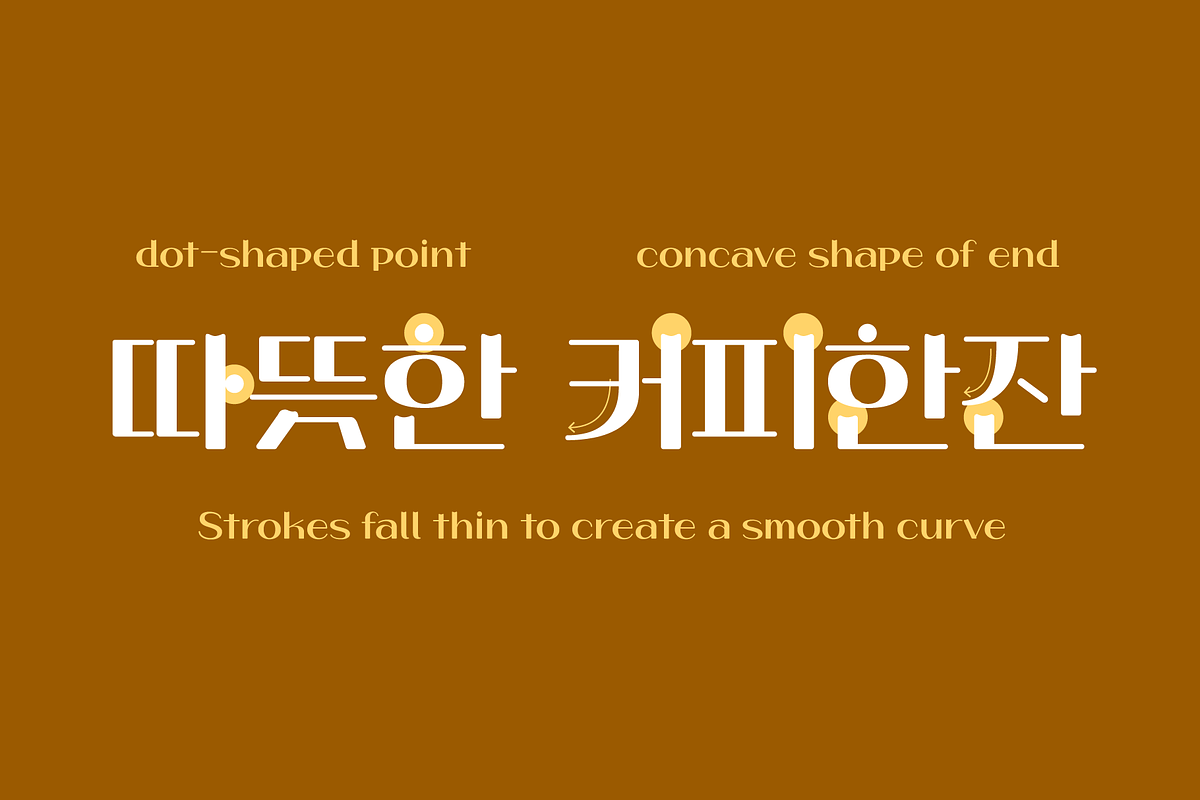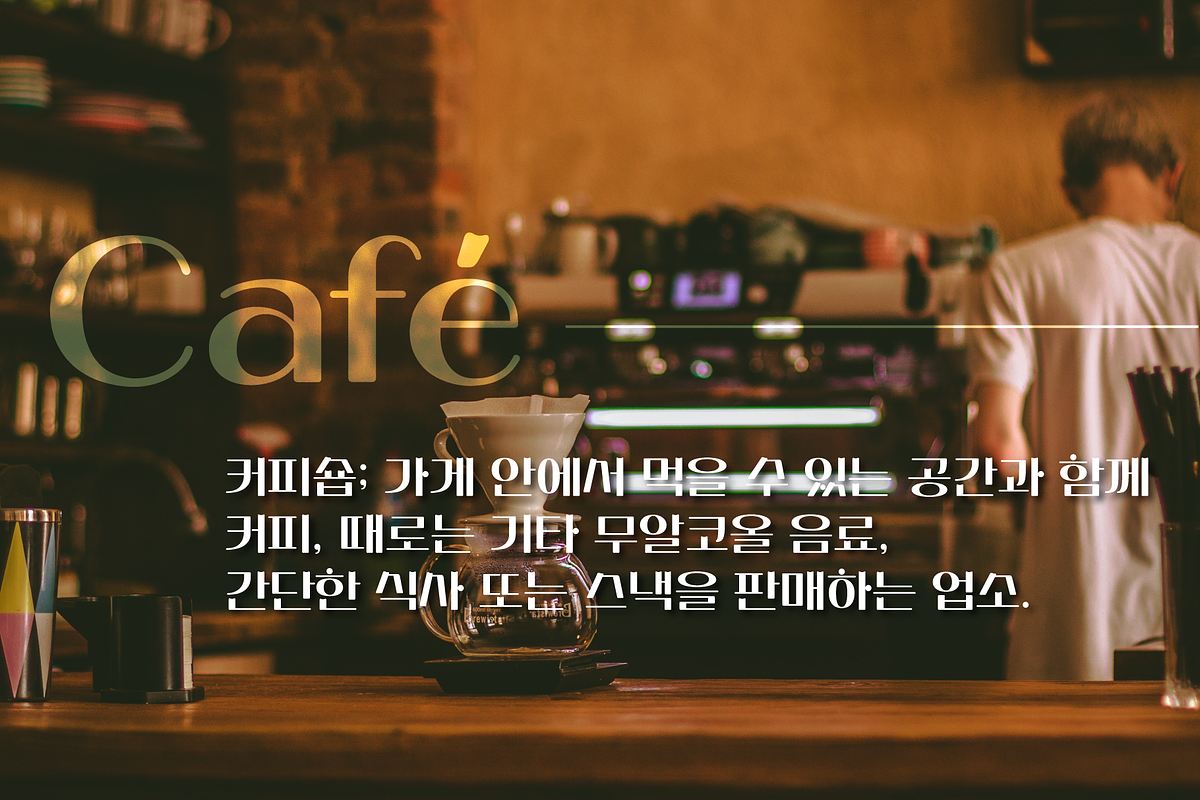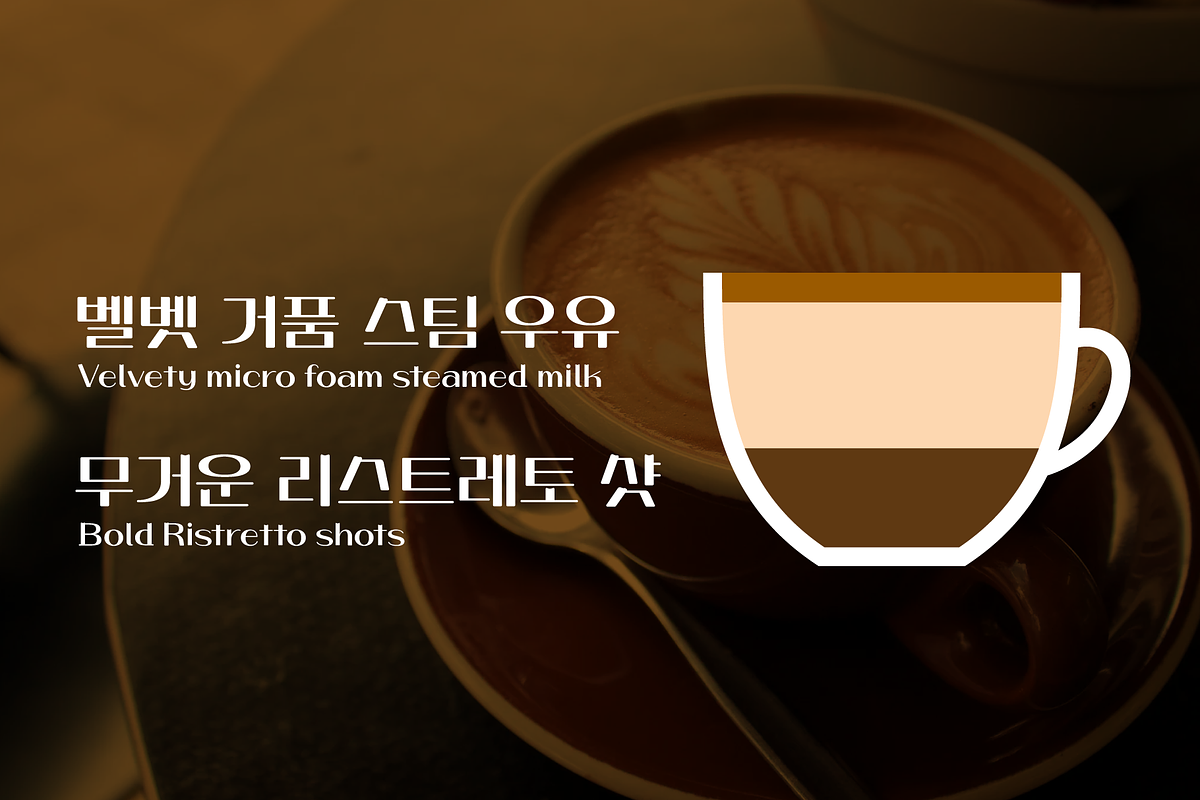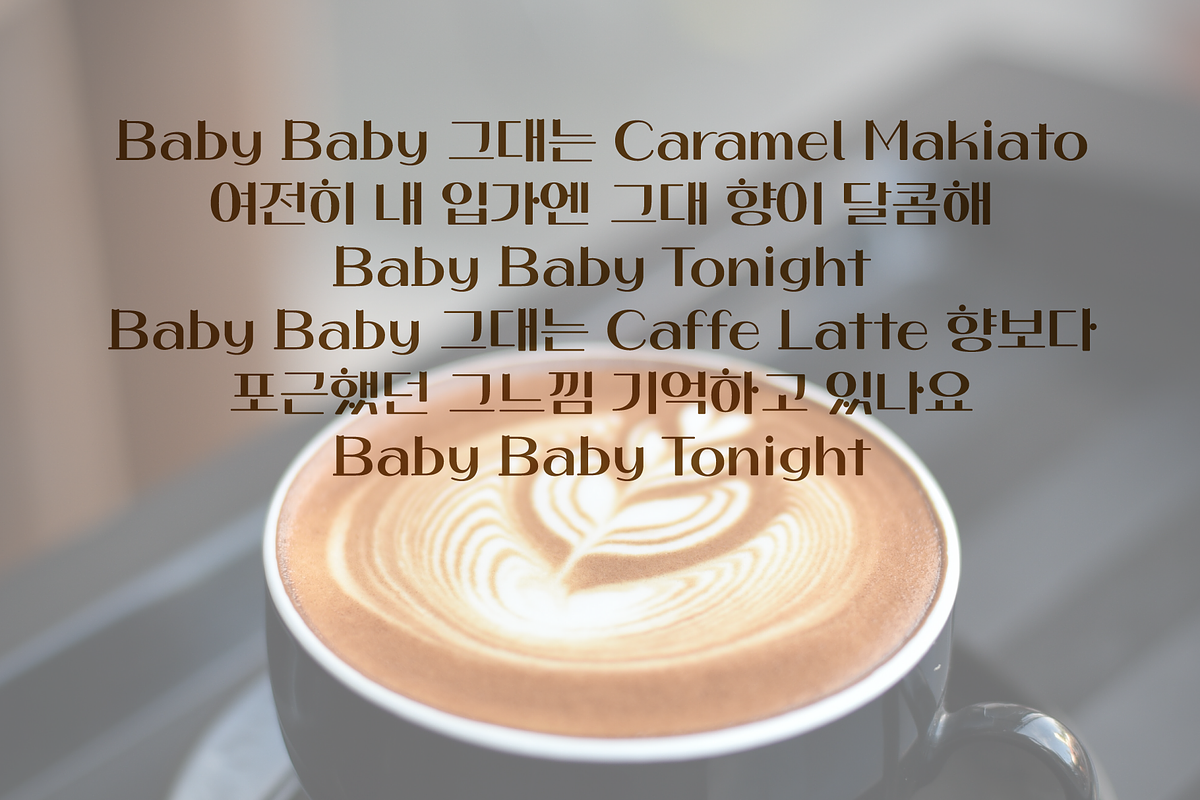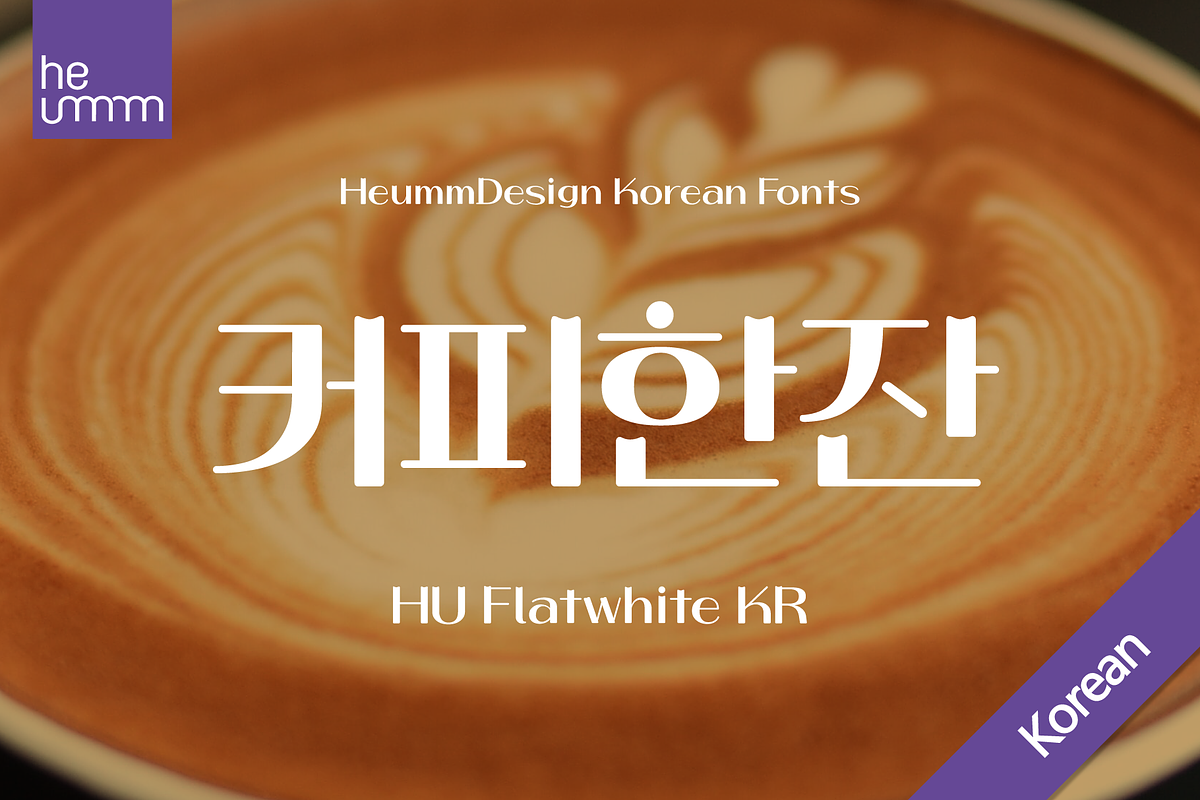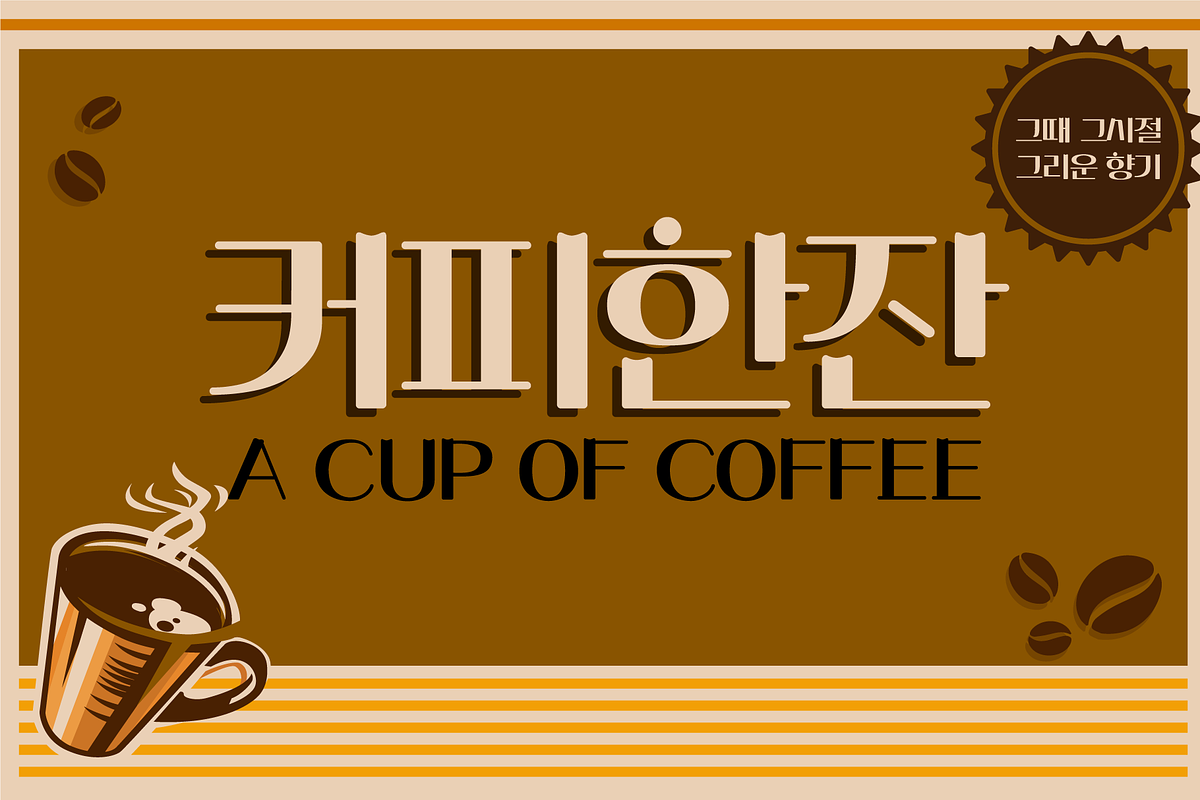
HU Flat White KR is a retro vibe headline typeface.
It has a full module, but, the inner space created by large strokes' contrast gives a cool feeling. Overall, the extended typeface with a wide width is attractive, and the features of the first bump of the neutrality and the dot shape create a retro feel. What sets this typeface apart is the dot shape found in the initial consonants and the thin ending strokes of 'ㄱ', 'ㅅ', and 'ㅈ' characters, resulting in a smooth and flowing curve. Despite being a full module typeface, the broad contrast of strokes creates an inner space that imparts a cool, refreshing feel.
This typeface is crafted with meticulous attention to detail and provides extensive support for the Korean language, making it an ideal choice for diverse design projects including headlines, titles, posters, signage, and more.
Infuse a retro vibe into your designs with this elegant Korean typeface!
There is 1 weight of HU Flat White KR : Bold